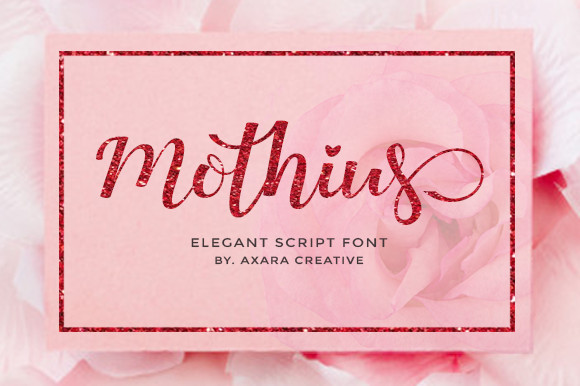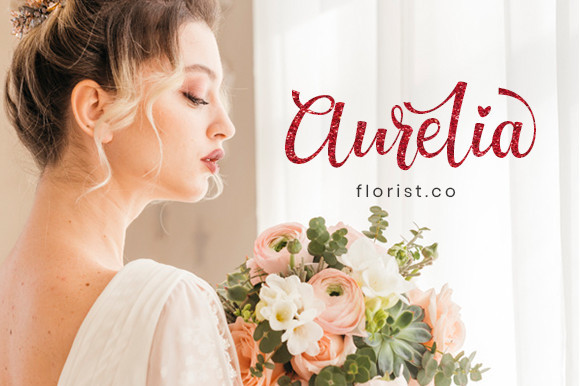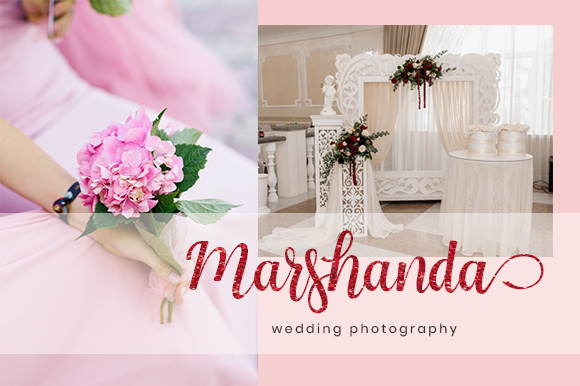
Mothius Font
Mothius Script is a sweet, soft hand-lettered script font. The playful rounded characters make it the perfect font for creating stunning calligraphy art. Mothius comes packed with PUA encoded characters, that will allow you to add a decorative touch within seconds. It comes in both PTF and TTF. Fall in love with its authentic feel and use it to create gorgeous wedding invitations, beautiful stationary art, eye-catching social media posts, and cute greeting cards.